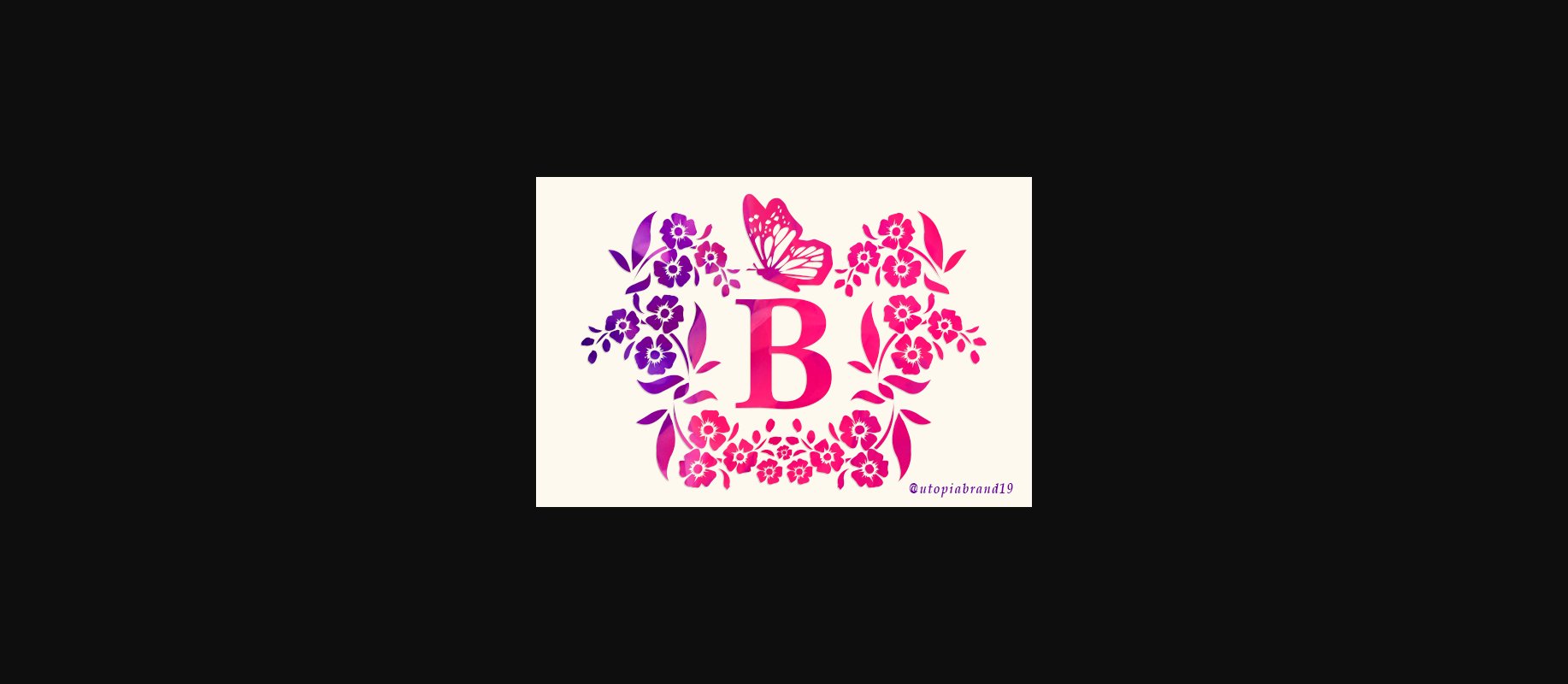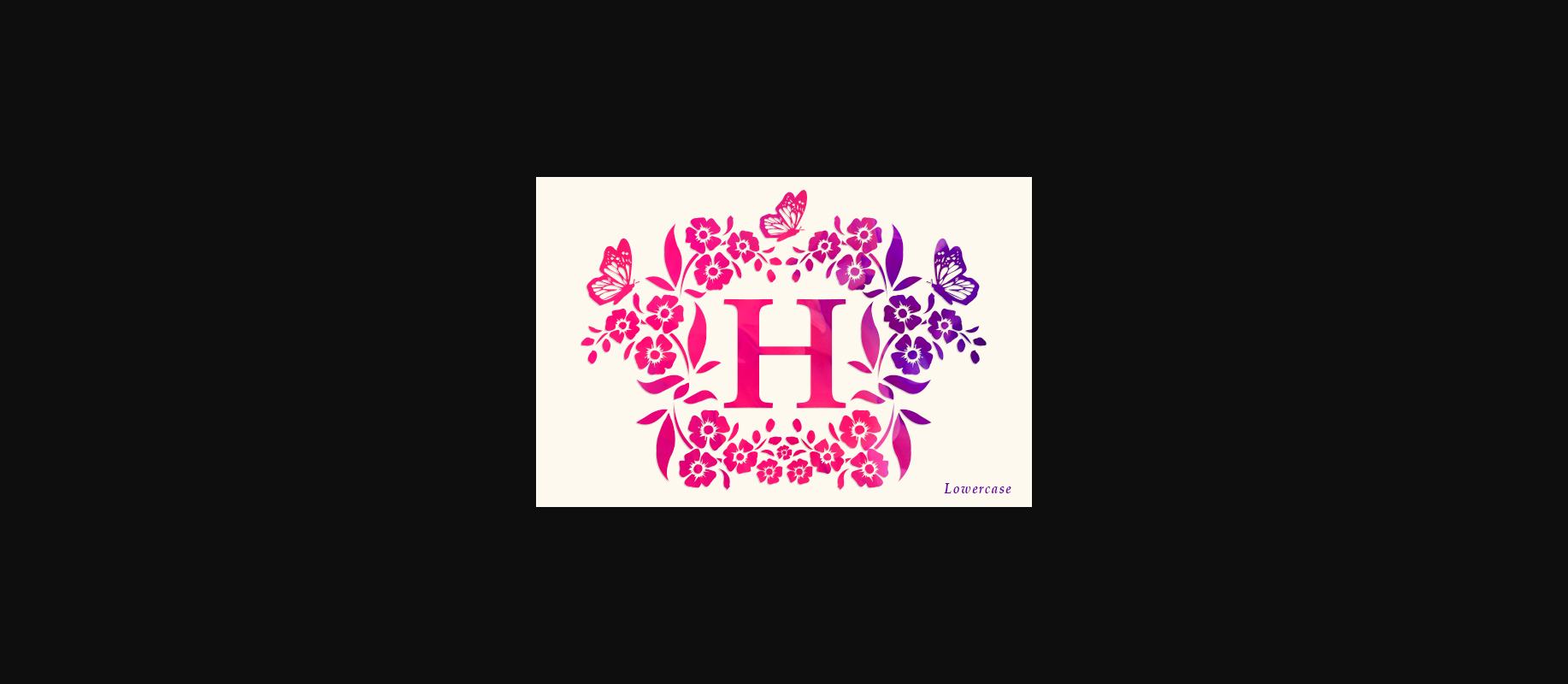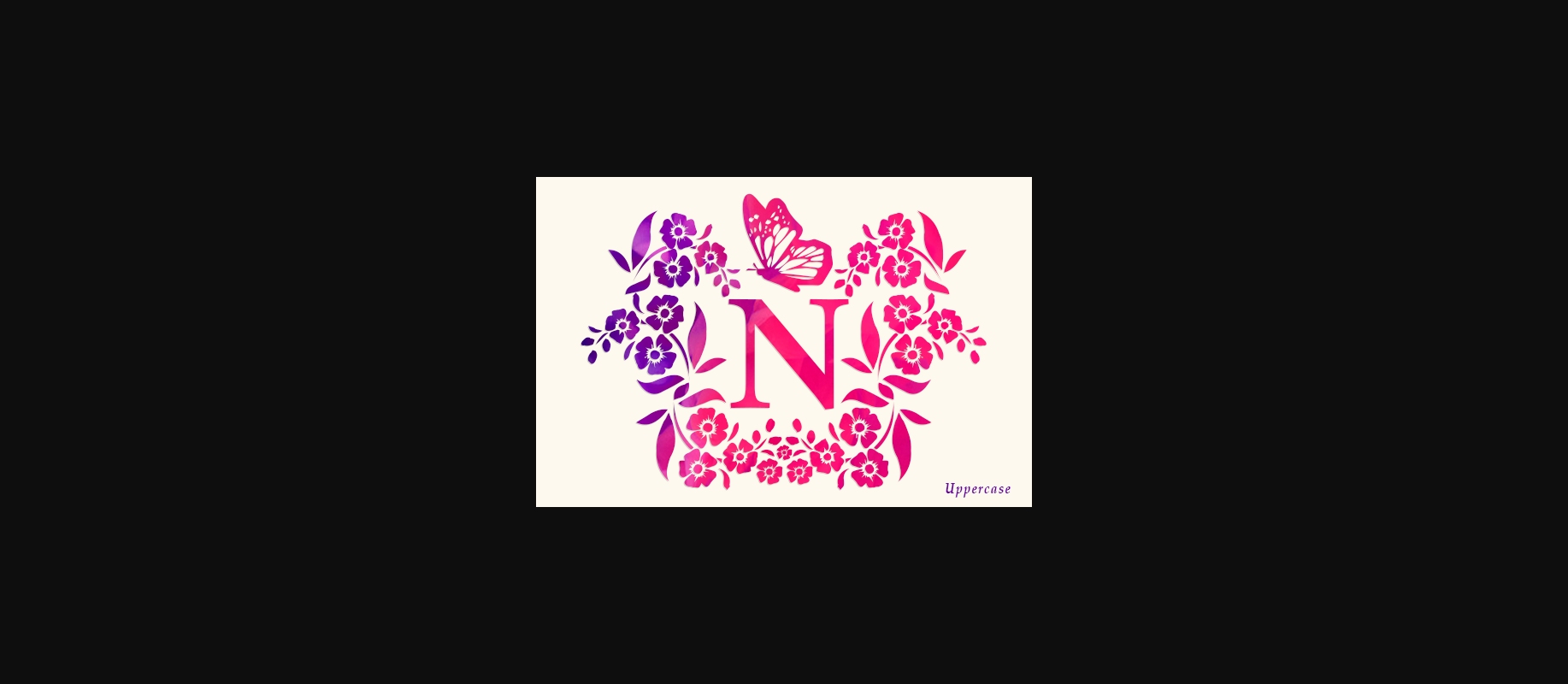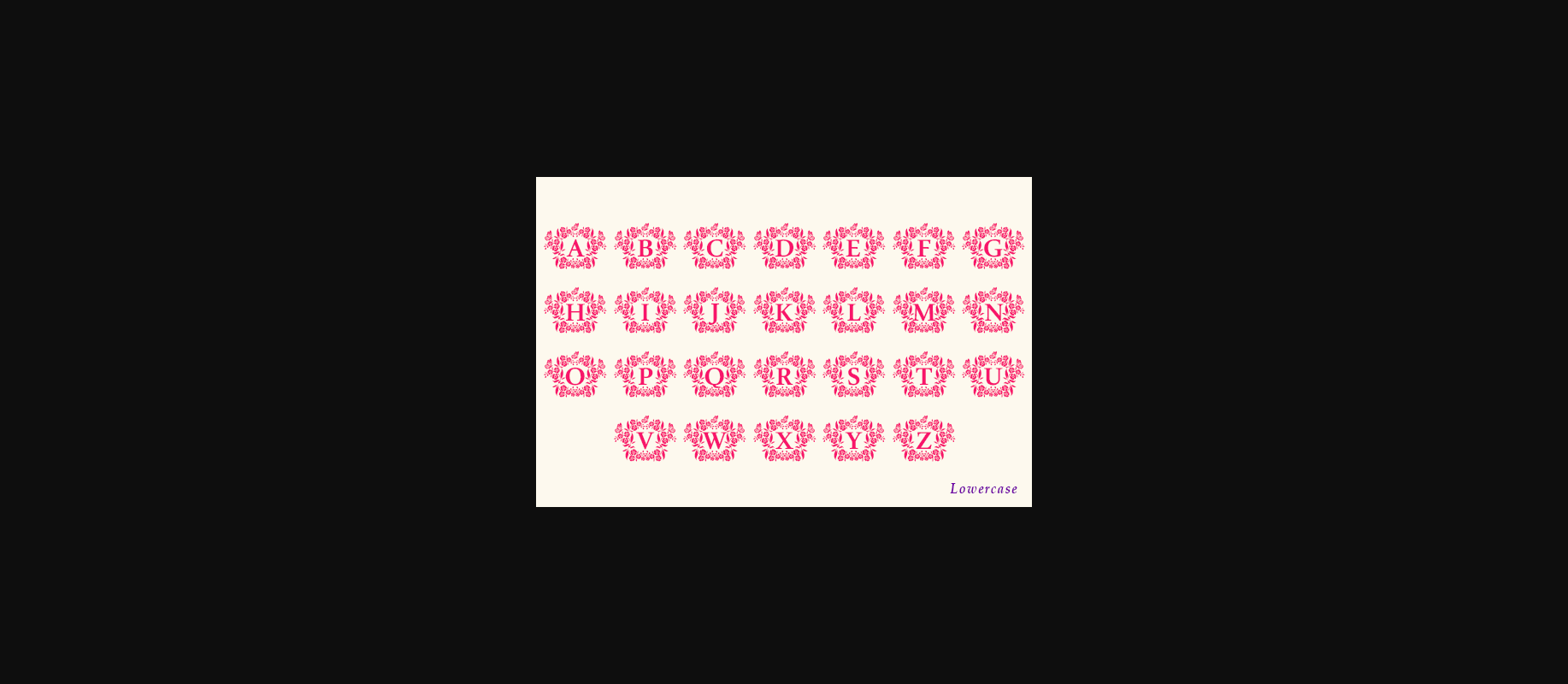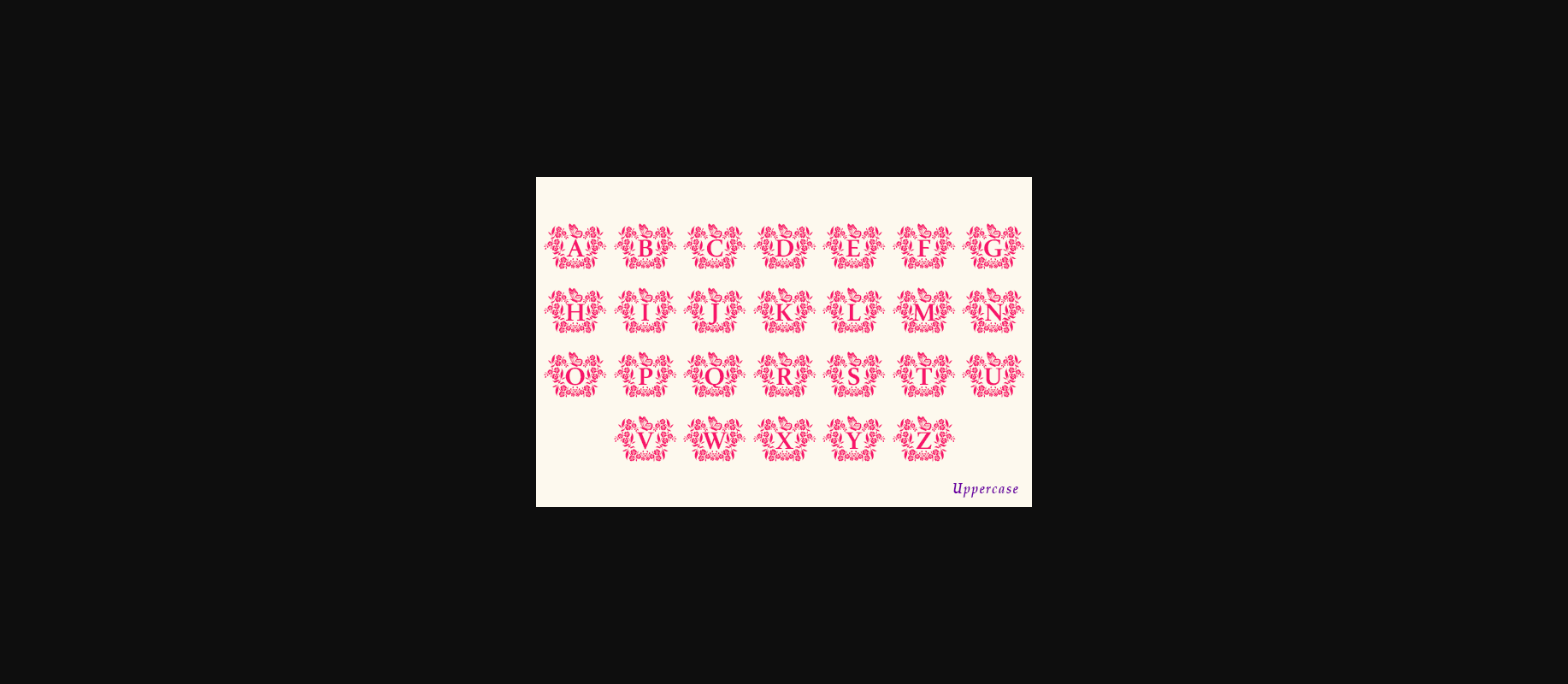
Flower Butterfly Monogram Font Font
About Flower Butterfly Monogram Font
Flower Butterfly Monogram is a ravishing decorative font, featuring incredibly detailed ornaments. Fall in love with its unique style and use it to create spectacular designs!